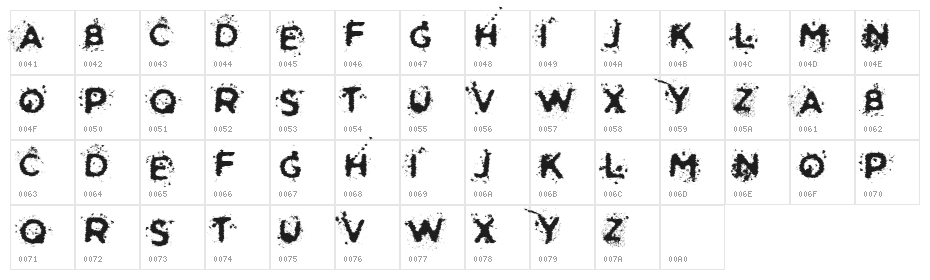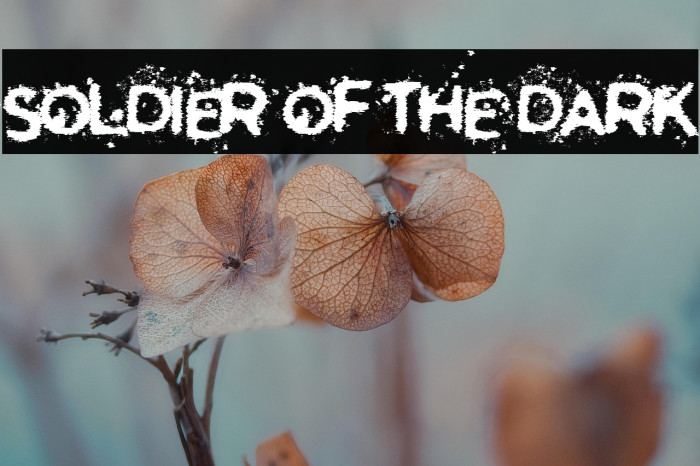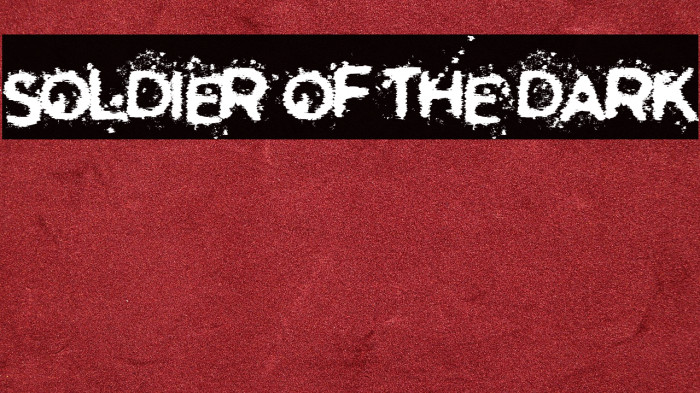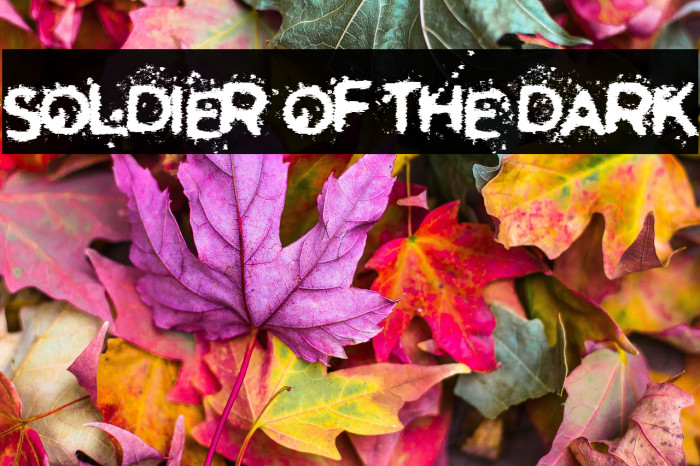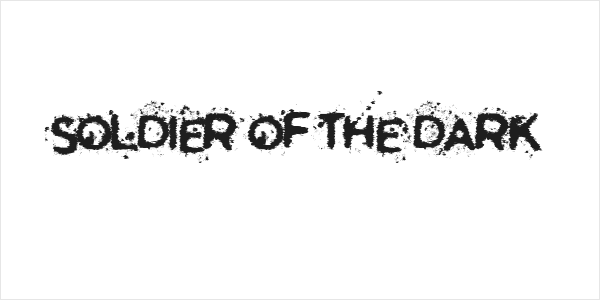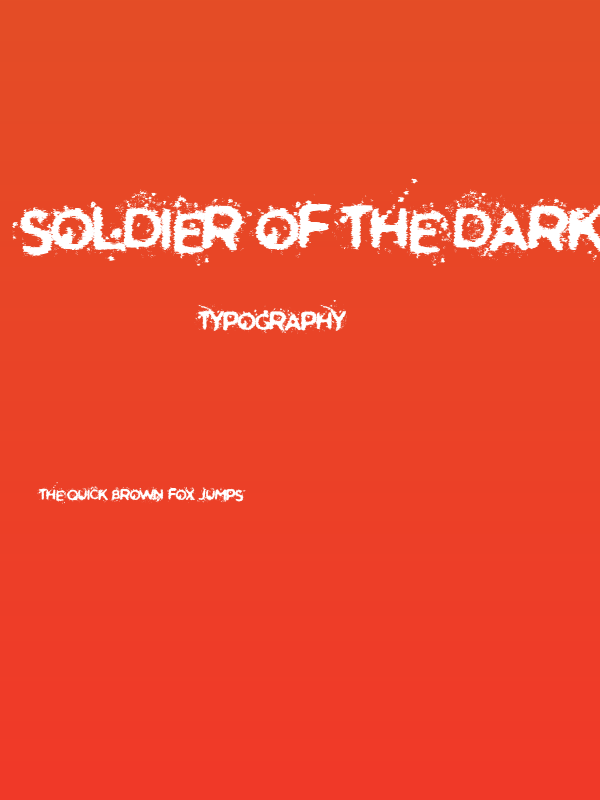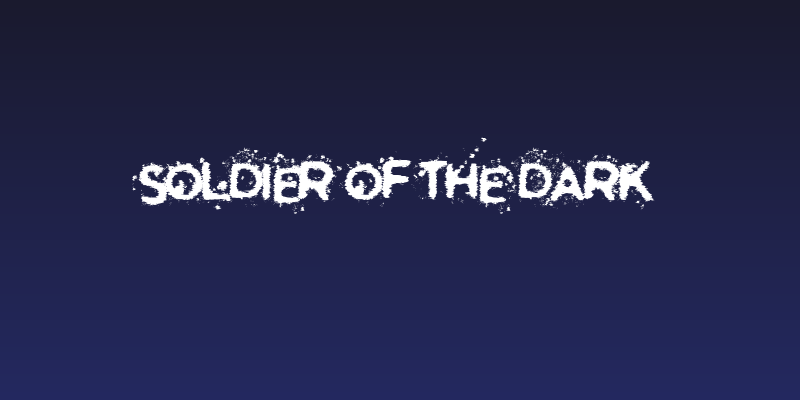
Soldier of the Dark Font
Soldier of the Dark Description
This font exudes a gritty, distressed aesthetic, characterized by its rough, textured appearance. Each letter is imbued with a sense of ruggedness, as if it has been weathered by time or elements. The edges are irregular and jagged, contributing to a raw and edgy vibe. This style is reminiscent of urban graffiti or worn-out stencils, making it ideal for projects that require a bold, rebellious statement. The uppercase letters are prominent and commanding, while the overall design maintains a consistent, cohesive look despite its chaotic surface texture.
| Overall Style | Urban, Edgy, Distressed |
| Proposed Projects | Ideal for album covers, streetwear branding, posters, or any project needing an edgy, rebellious touch. |